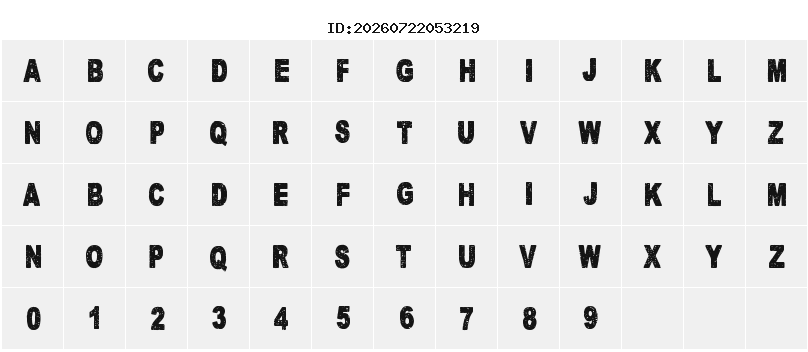
• Font Name: Humectez La Mouture
• Full Font Name: Humectez La Mouture
About Humectez La Mouture.ttf
Humectez La Mouture.ttf is a modern, elegant sans-serif font designed for ultimate readability and visual harmony. Perfect for branding, headlines, web design, and print materials.